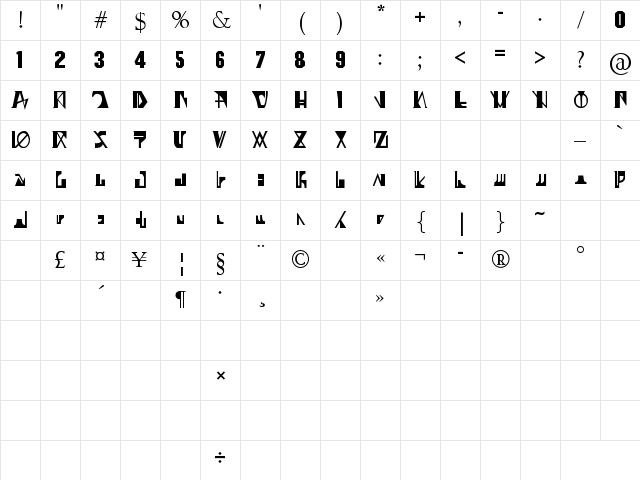
07-GHOST Zaiphon Regular
Design Context for 07-GHOST Zaiphon
07-GHOST Zaiphon is a composed and adaptable typeface that performs quietly and consistently across a wide range of design contexts.
Pro Tip: Use 07-GHOST Zaiphon in both headline and body roles to test its range before committing to a single application.